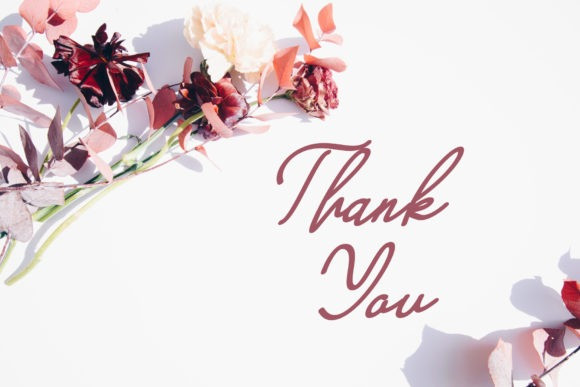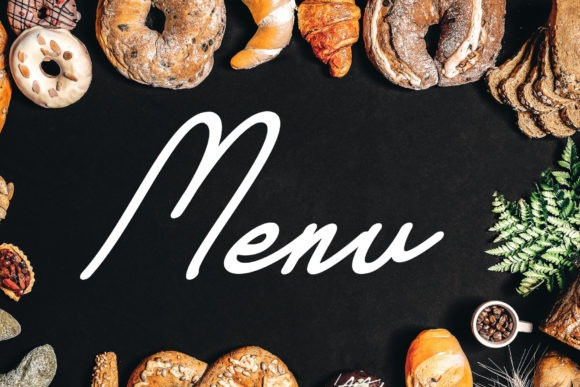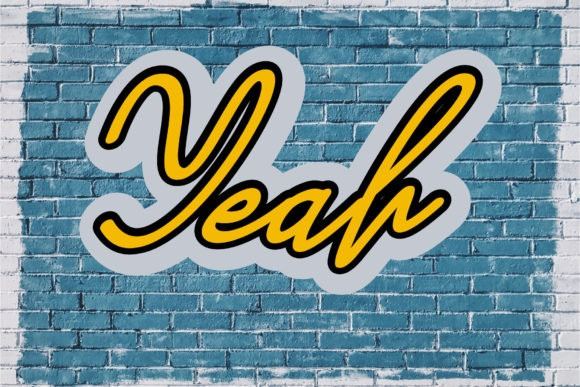
Yeah Font
Yeah Font is a cool and classy handwritten font that looks incredibly natural and authentic. Use it for projects that need a highly personal look and an exquisite vibe.